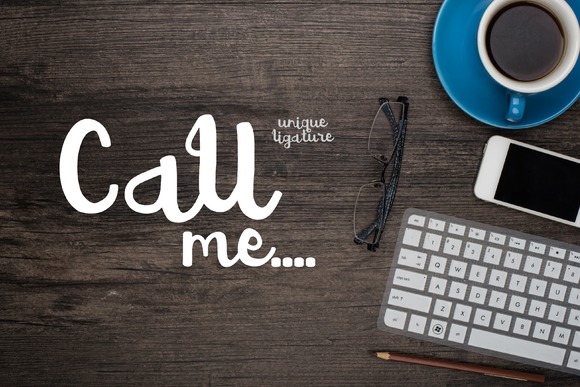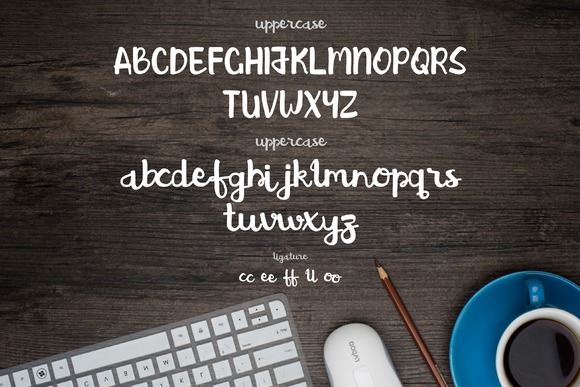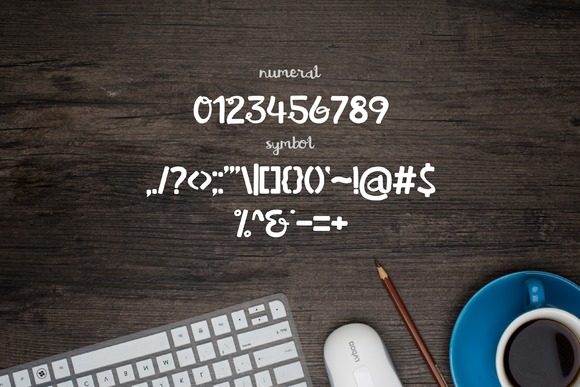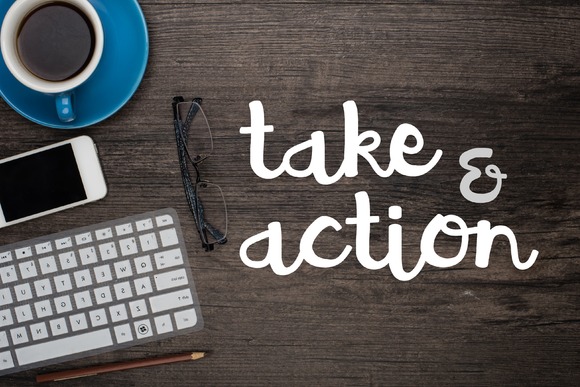
Unlock Creative Possibilities with Brush Action Font
Are you a designer, crafter, or artist looking for a unique and versatile typeface to elevate your creative projects? Look no further than Brush Action Font! This stunning font is perfect for adding a personal touch to various designs, from headings and logos to posters, book covers, and more.
What is Brush Action Font?
Brush Action Font is a beautiful, hand-crafted typeface that mimics the look and feel of brush strokes. Its distinctive, organic style gives it a unique charm that can add a touch of personality to any design. Whether you’re creating a logo, badge, or poster, Brush Action Font is sure to make your project stand out.
Uses of Brush Action Font
One of the best things about Brush Action Font is its versatility. It can be used for a wide range of purposes, including:
- Headings: Add a bold, eye-catching touch to your headings with Brush Action Font.
- Logos: Create a unique and memorable logo for your brand with this distinctive font.
- Badges: Design custom badges for events, products, or services with Brush Action Font.
- Posters: Create stunning posters for movies, concerts, or art exhibitions with this beautiful font.
- Book Covers: Add a touch of elegance to your book covers with Brush Action Font.
- Newspapers: Use Brush Action Font to create attention-grabbing headlines and titles for your newspaper or magazine.
Why Choose Brush Action Font?
So, why should you choose Brush Action Font for your next project? Here are just a few reasons:
- Unique Style: Brush Action Font has a distinctive, one-of-a-kind style that will set your project apart from the rest.
- High-Quality Design: This font is carefully crafted to ensure high-quality design and readability.
- Versatile: As mentioned earlier, Brush Action Font can be used for a wide range of purposes, making it a great addition to any designer’s toolkit.
Tips for Using Brush Action Font
Here are a few tips for getting the most out of Brush Action Font:
- Experiment with Sizes: Brush Action Font looks great in a variety of sizes, so don’t be afraid to experiment to find the perfect size for your project.
- Play with Colors: This font looks great in a range of colors, so try out different colors to see what works best for your design.
- Combine with Other Fonts: Brush Action Font pairs well with a variety of other fonts, so feel free to get creative and combine it with other typefaces.